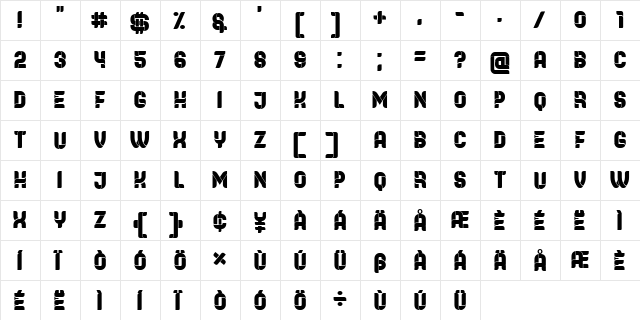
Browser Regular
Design Context for Browser Typeface
Browser is a composed and adaptable typeface that performs quietly and consistently across a wide range of design contexts.